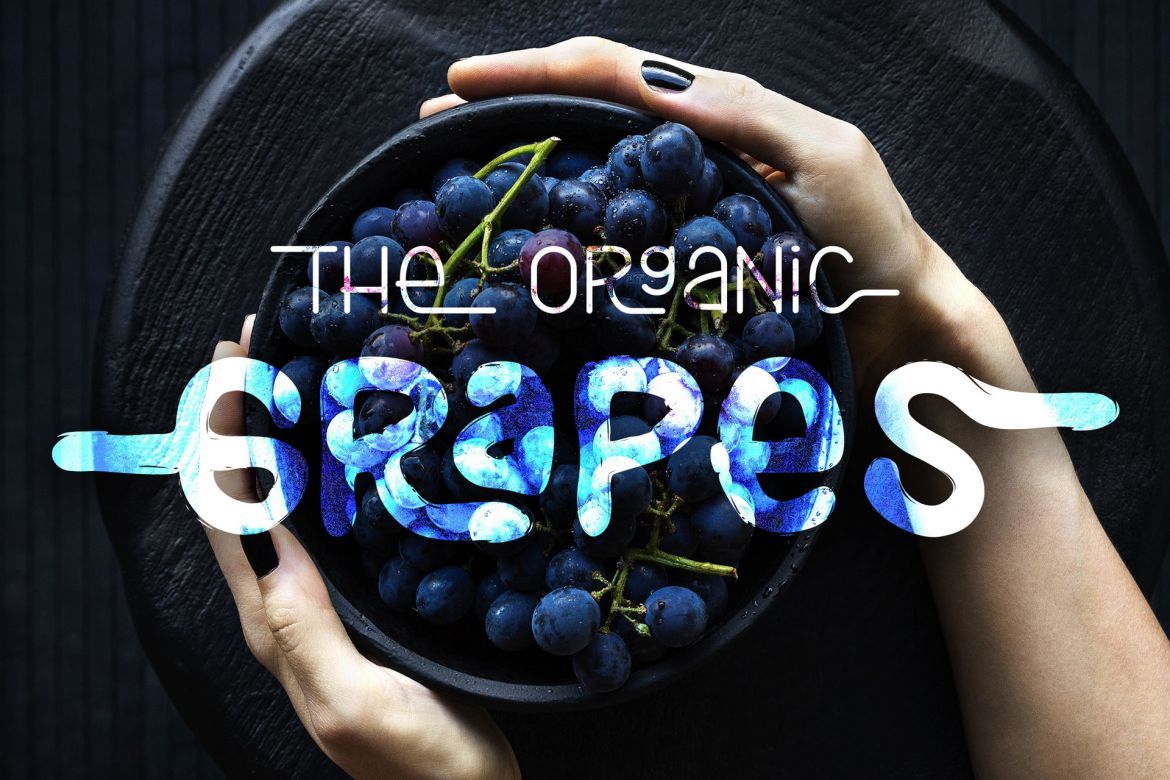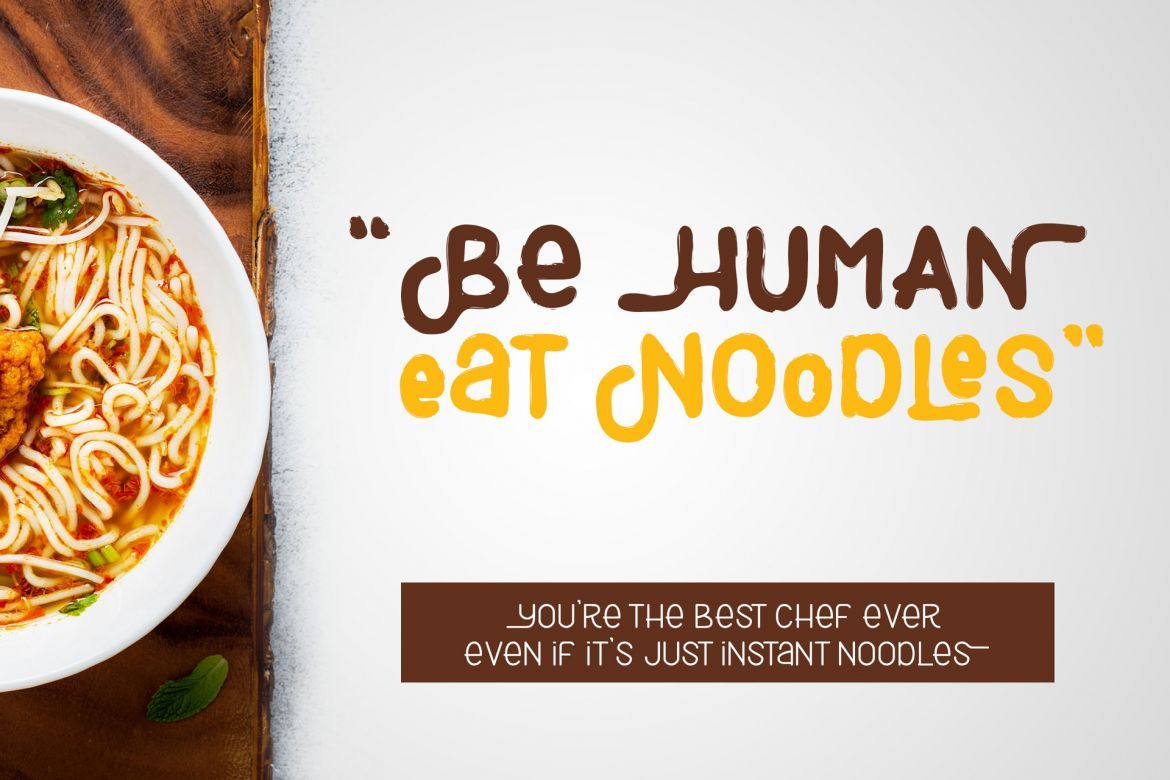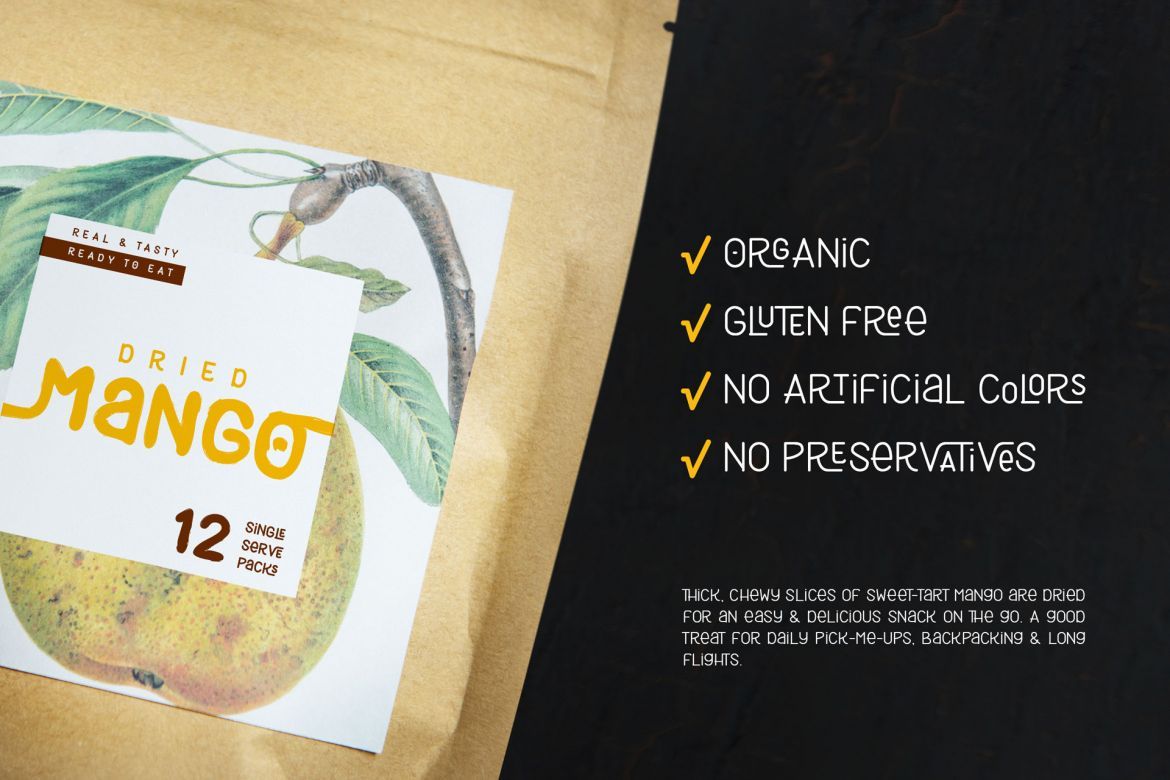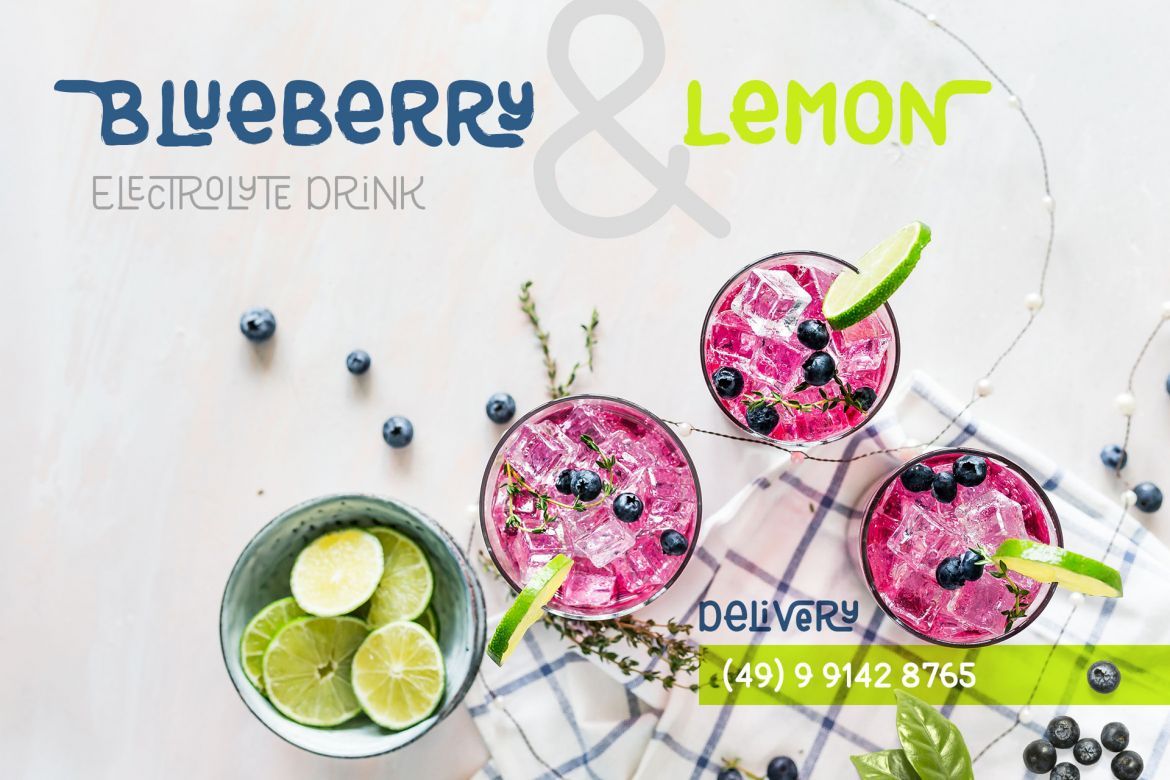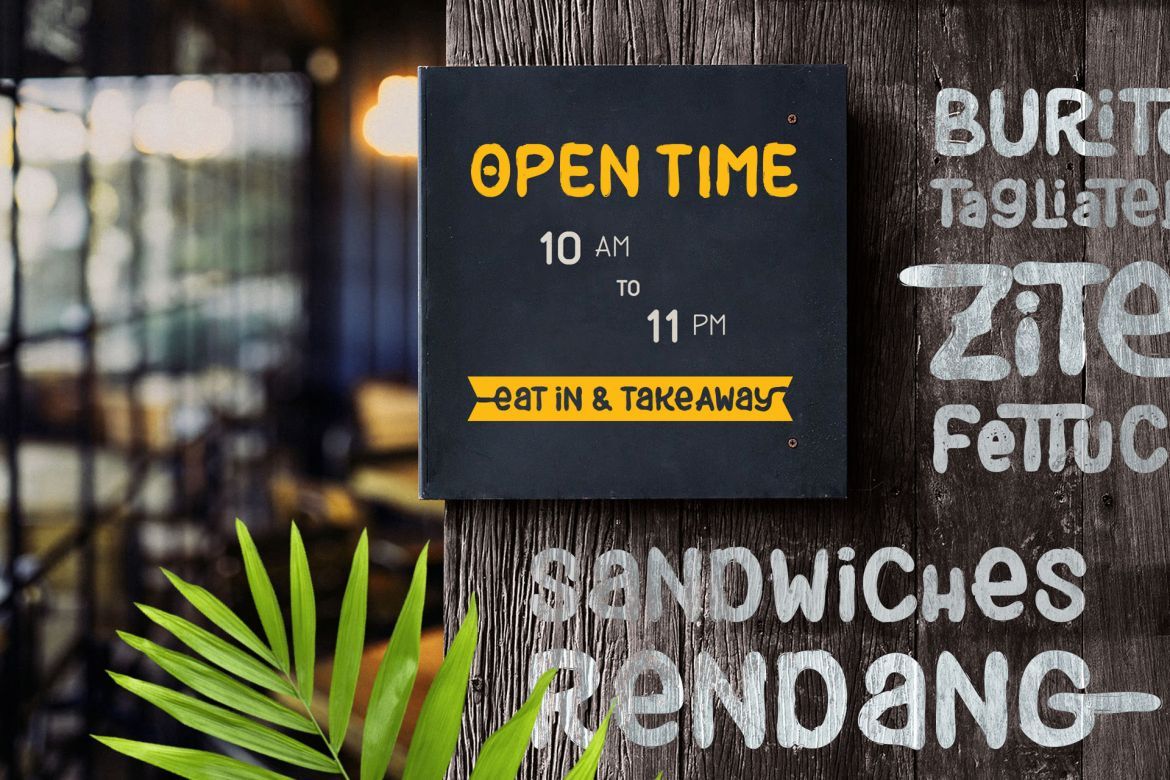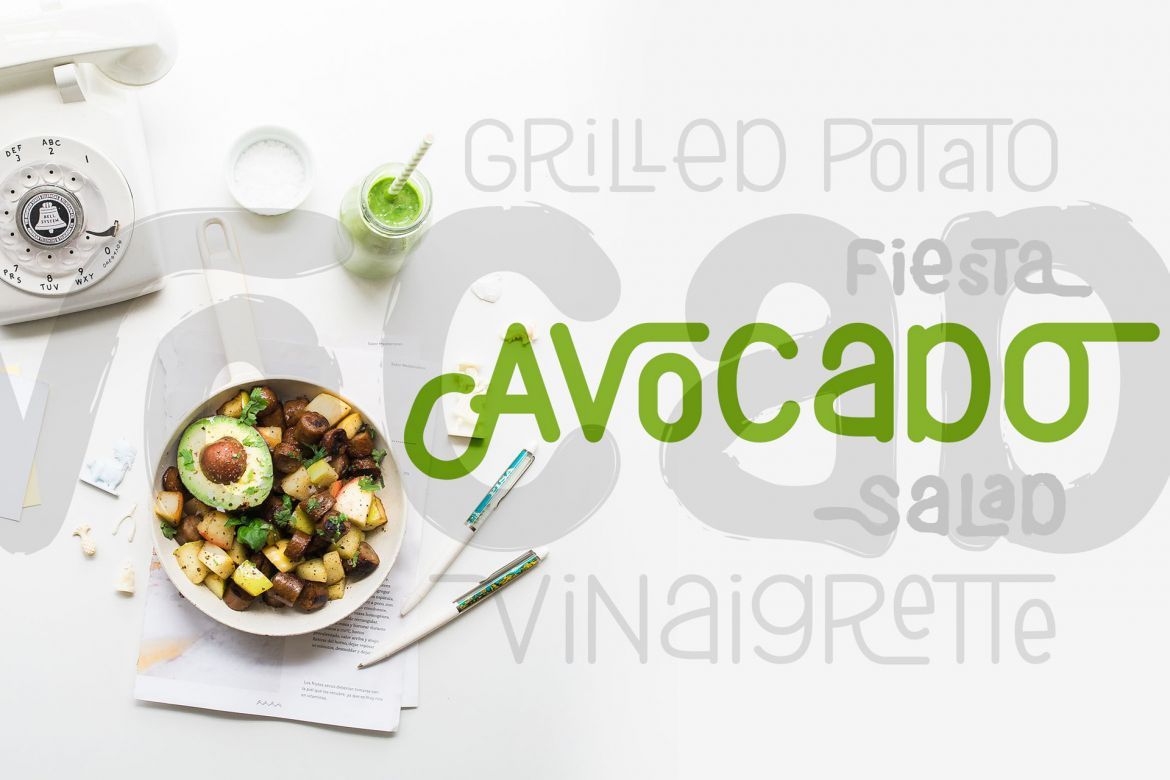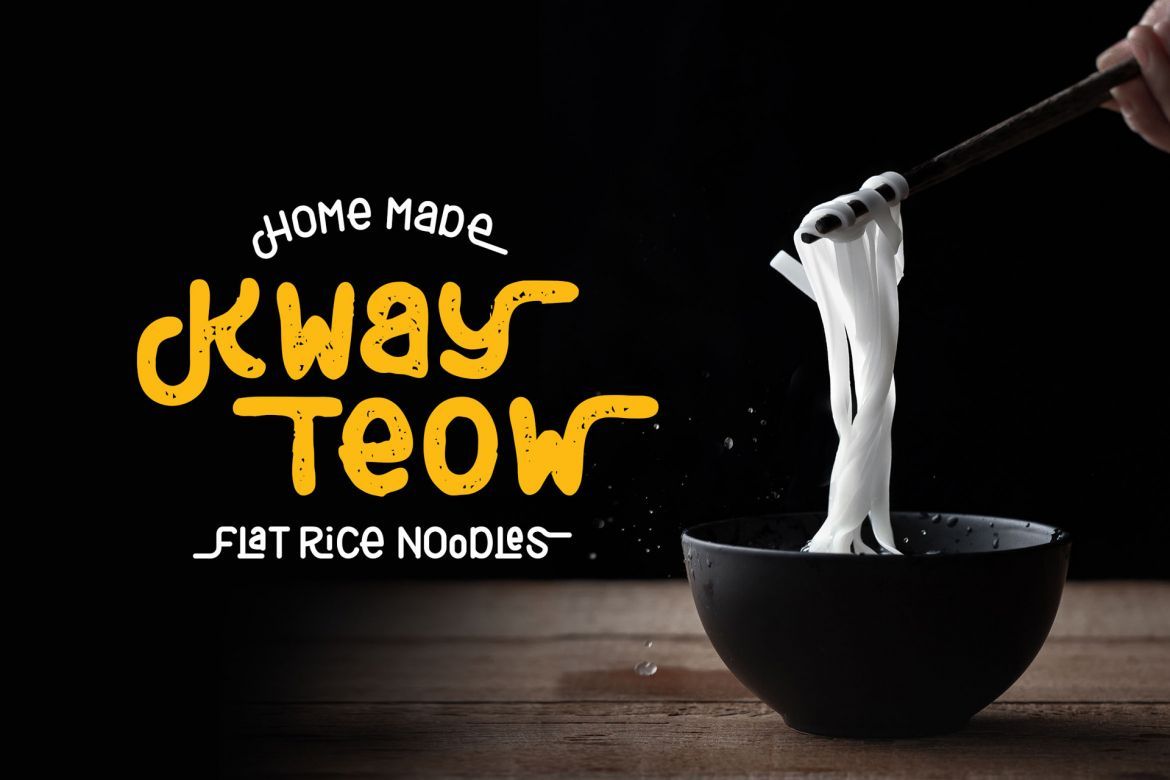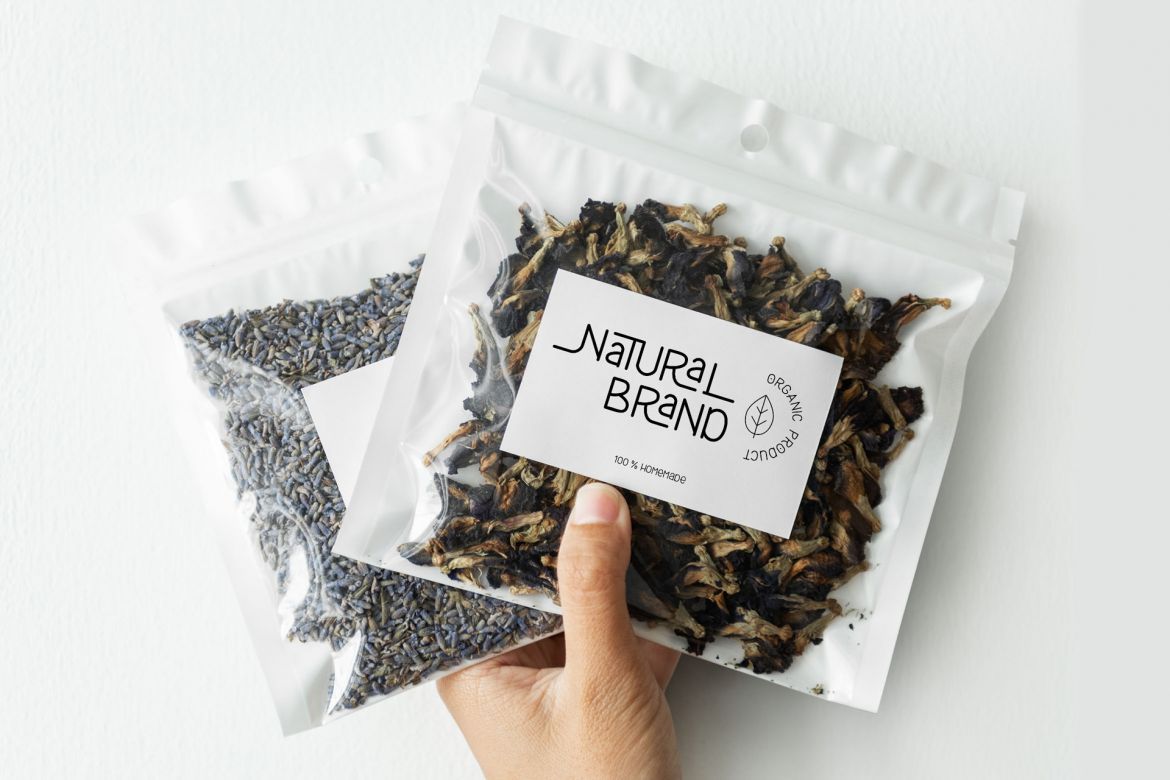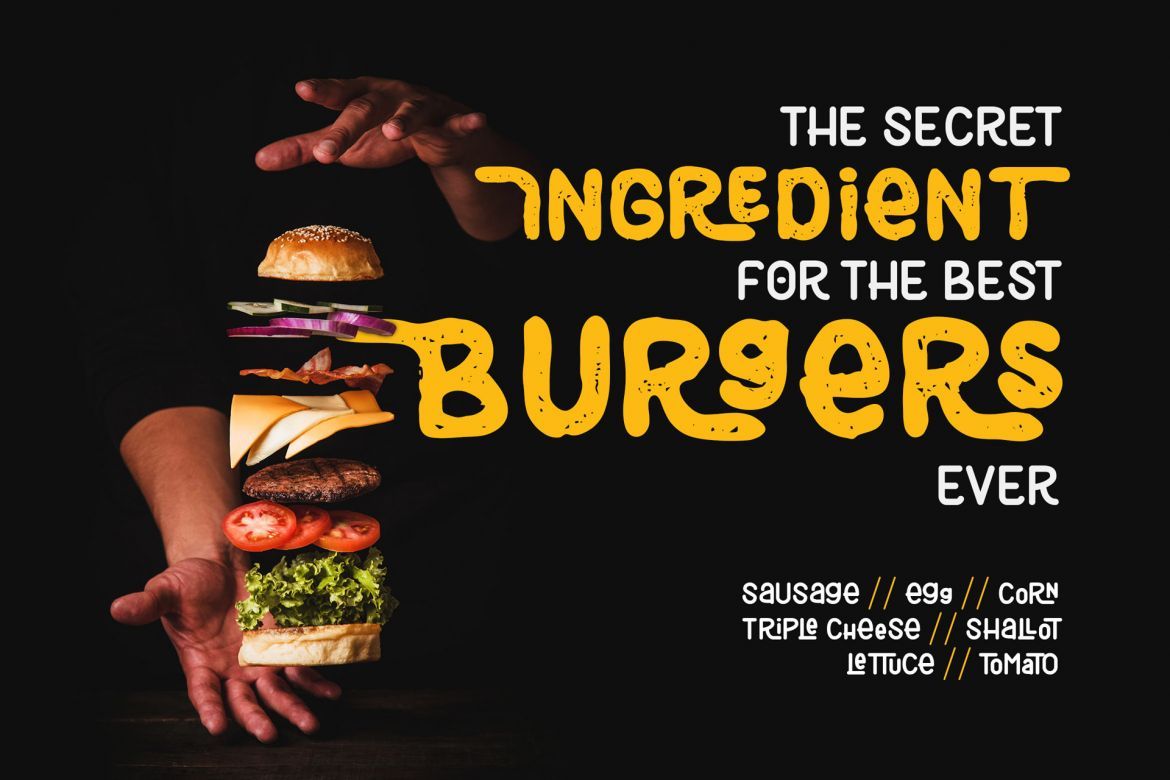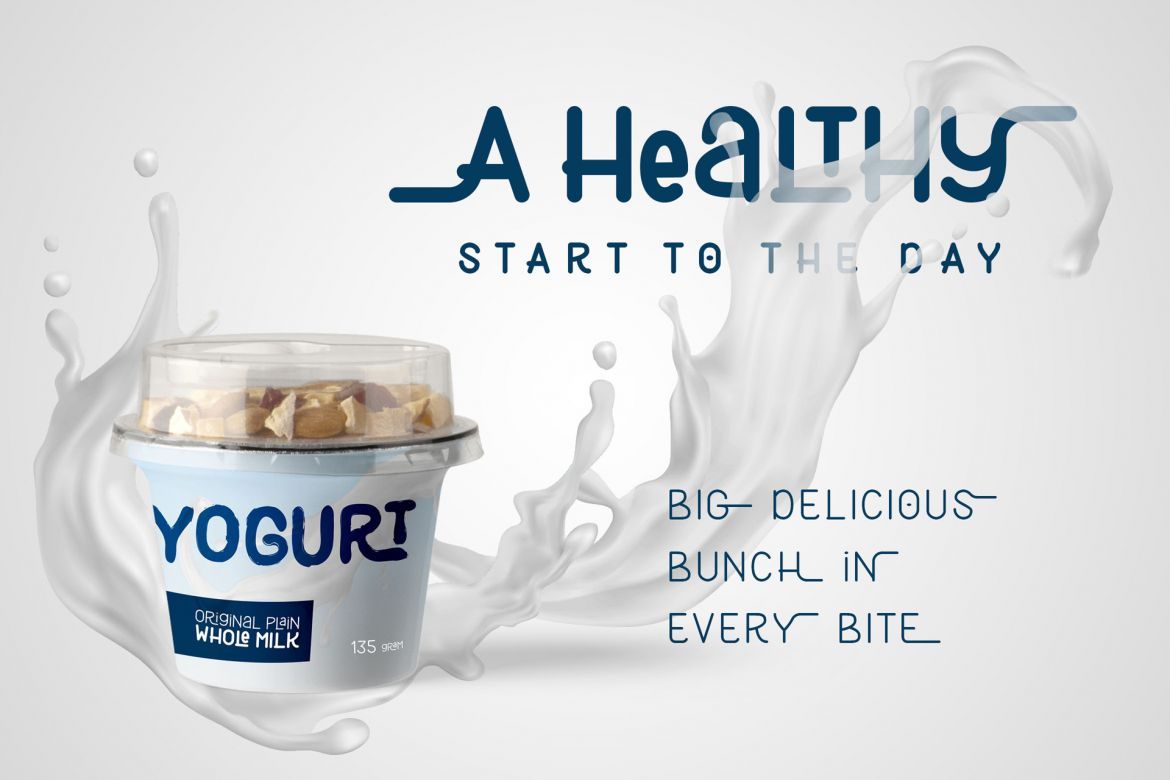
Black Burger Font Family
Black Burger – Delicious and playful font with a vintage type design style, but it still has a strong modern appearance A wide range of ligatures, alternate characters, as well as four different type allow unique and versatile design options
Black Burger perfect for branding projects, headlines, posters, packaging, product labels, print, menu board, social media post, etc
• alternate, ligature, number, punctuation & symbols
• carefully crafted
• delicious font
• multi language support